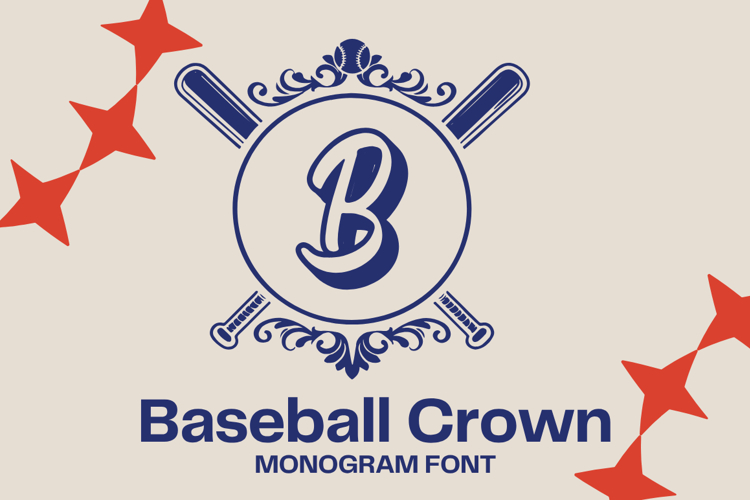
Meet Baseball Crown — a sport-themed monogram font that turns any letter into a ready-made diamond badge. Each glyph places an initial inside a circular emblem with crossed bats and ornamental details, giving you instant, consistent team marks for leagues, events, and community projects. Use the frame without a letter by pressing "." or "," to build layered logos or add your own symbols. Clean vector paths cut and print smoothly on popular crafting machines.